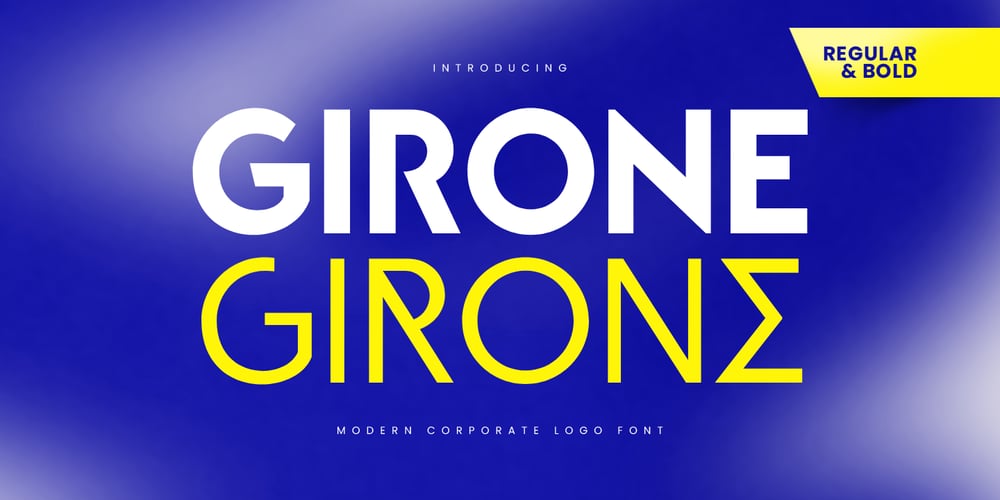
Girone
Girone font
Girone Font Family was designed by Zamroni Hamzah and published by Sensatype Studio. Girone contains 2 styles and family package options. Introducing GIRONE, the ultimate technology logo font designed for modern and innovative branding. GIRONE combines sleek aesthetics with cutting-edge design, making it perfect for tech-savvy projects.GIRONE Font Features: Modern Design: A sleek and contemporary font ideal for technology and digital themes. Versatile Usage: Perfect for logos, branding, tech presentations, and innovative designs. Multiple Formats: Available in 4 formats for flexibility. Futuristic Aesthetics: Clean and stylish, ensuring your designs stand out. High-tech Appeal: Tailored for professional and cutting-edge branding needs. Inspirational Previews: Includes sample designs to spark your creativity. Elevate your brand with GIRONE, a font that embodies the essence of modern technology and innovation. Whether for creating dynamic logos or sleek typography, GIRONE brings a touch of futurism to all your design projects. Make a bold statement with GIRONE’s high-tech style and impeccable design.